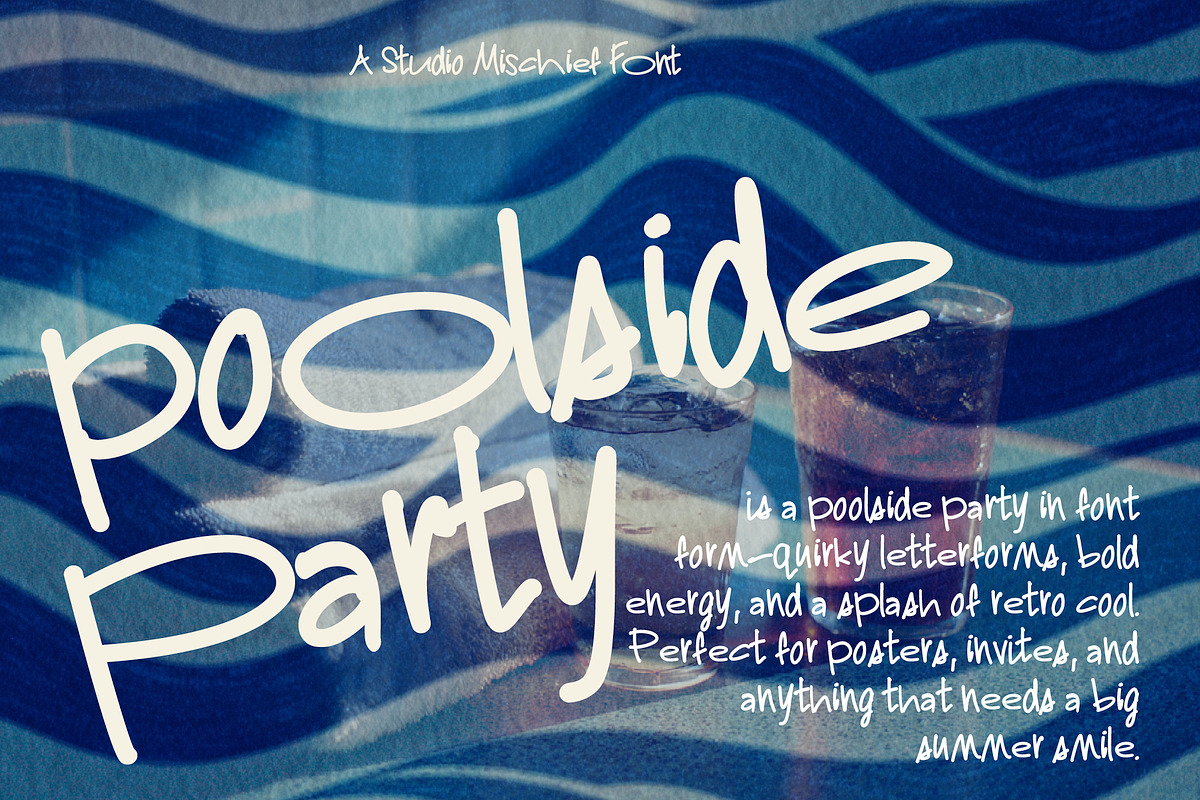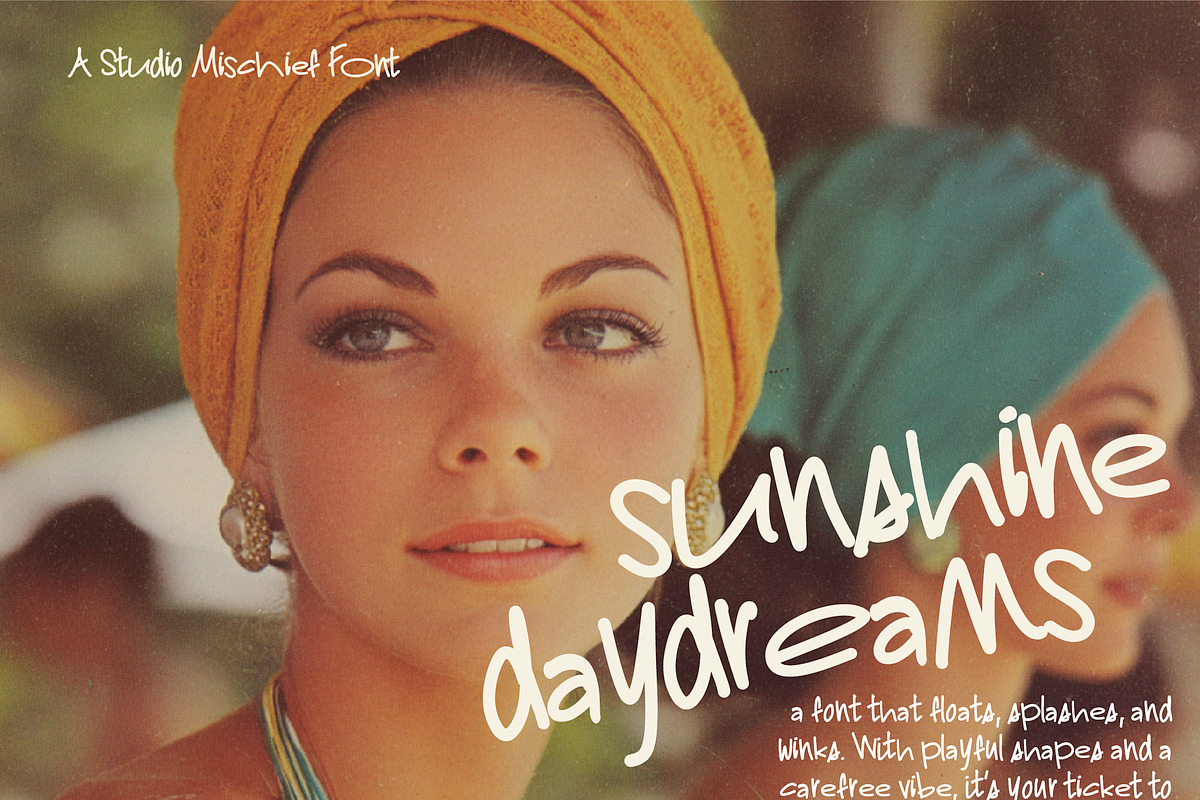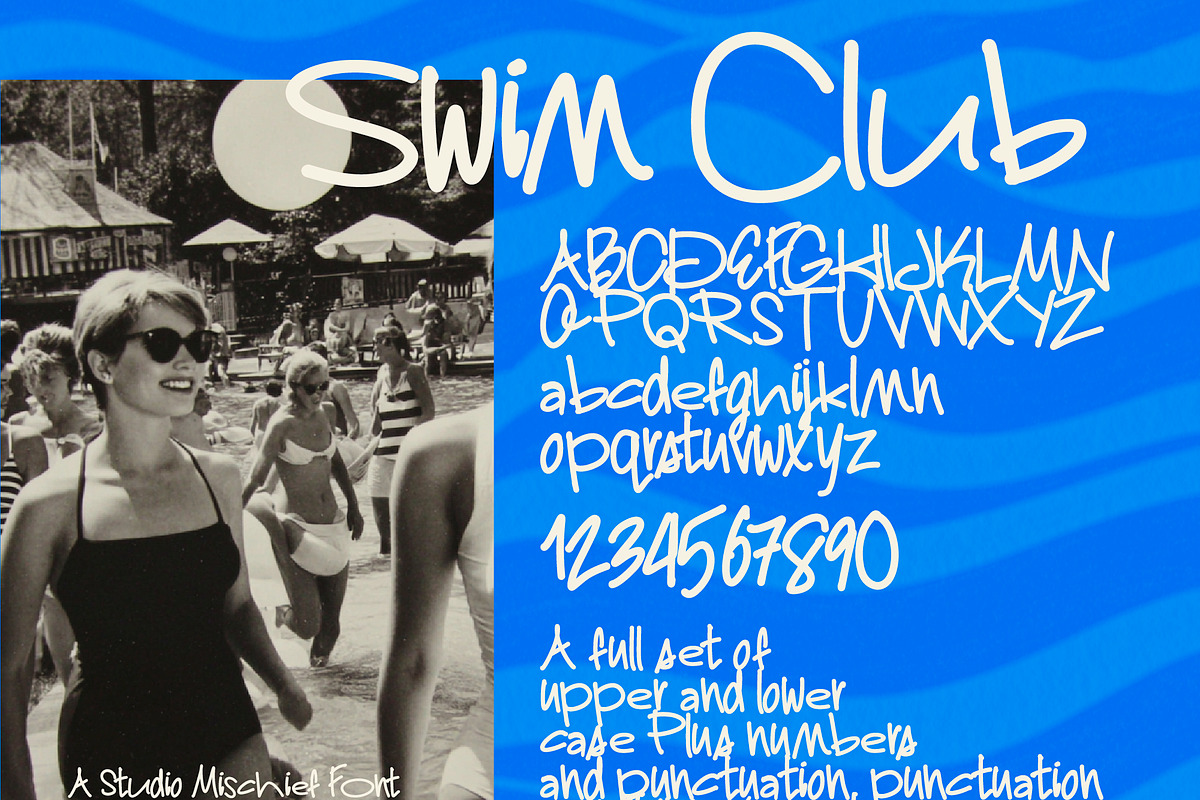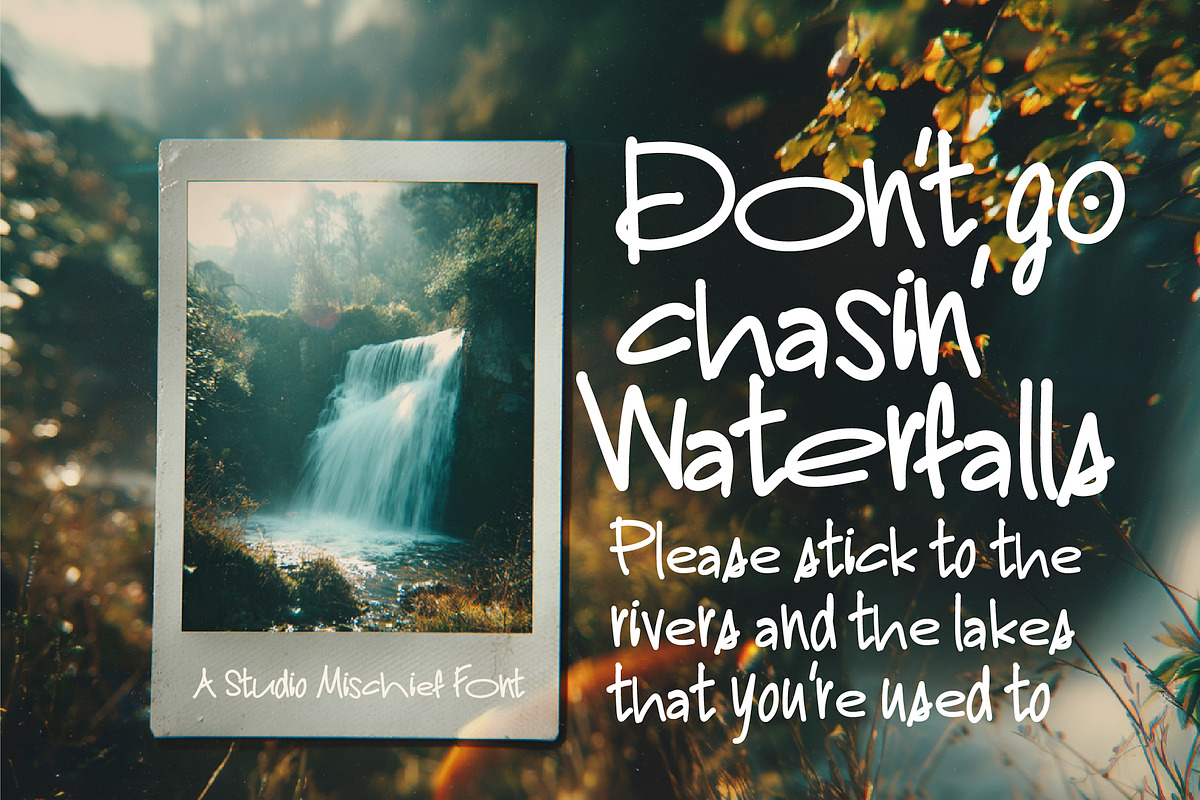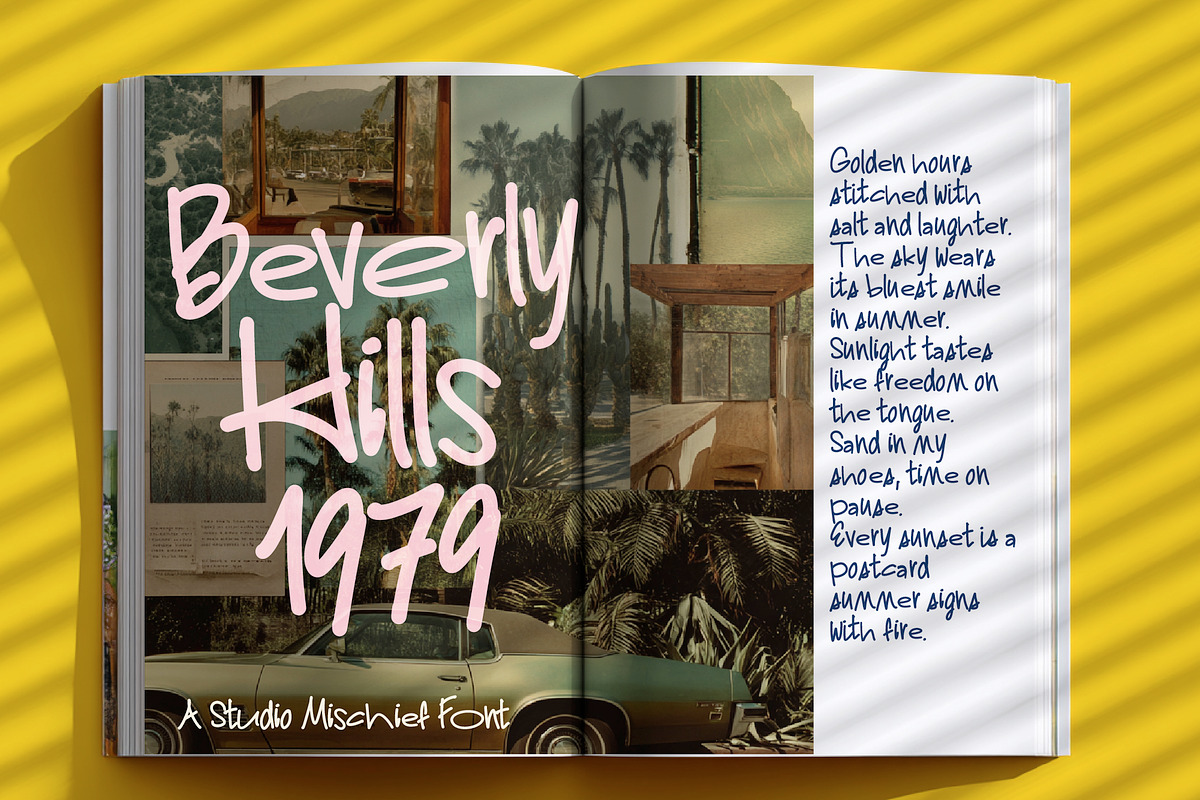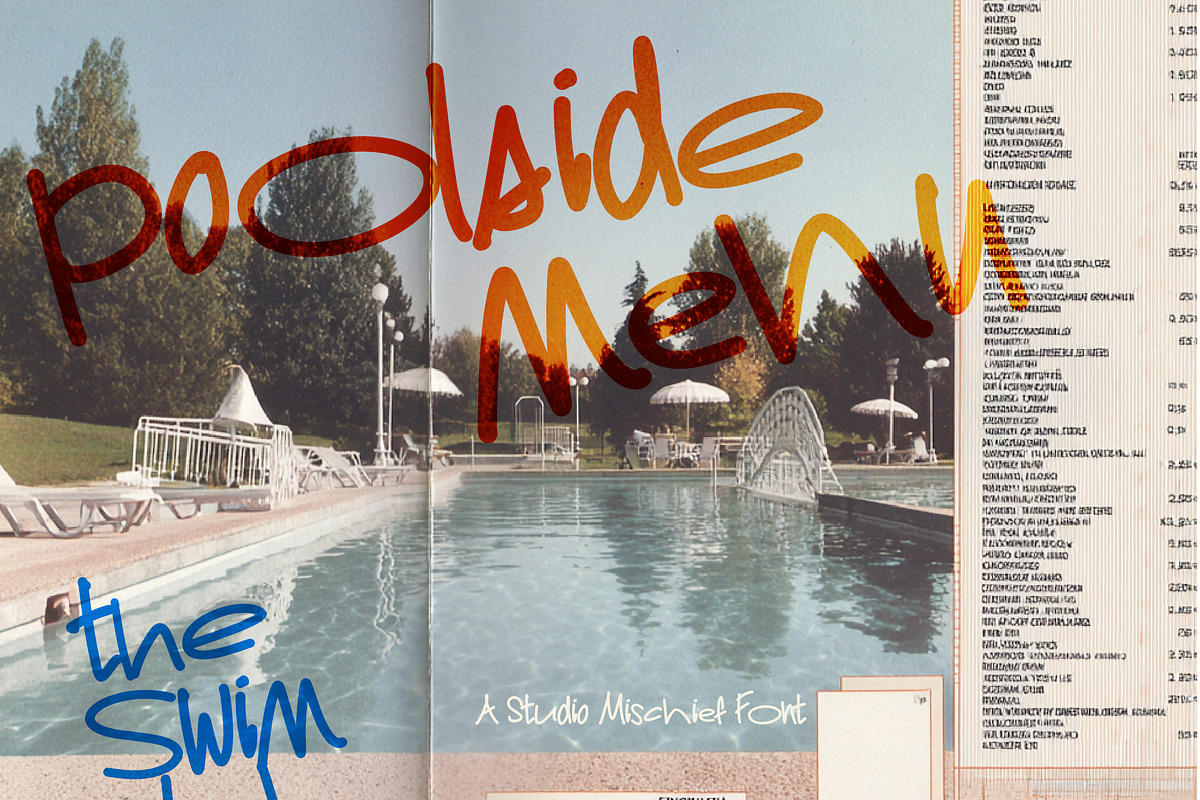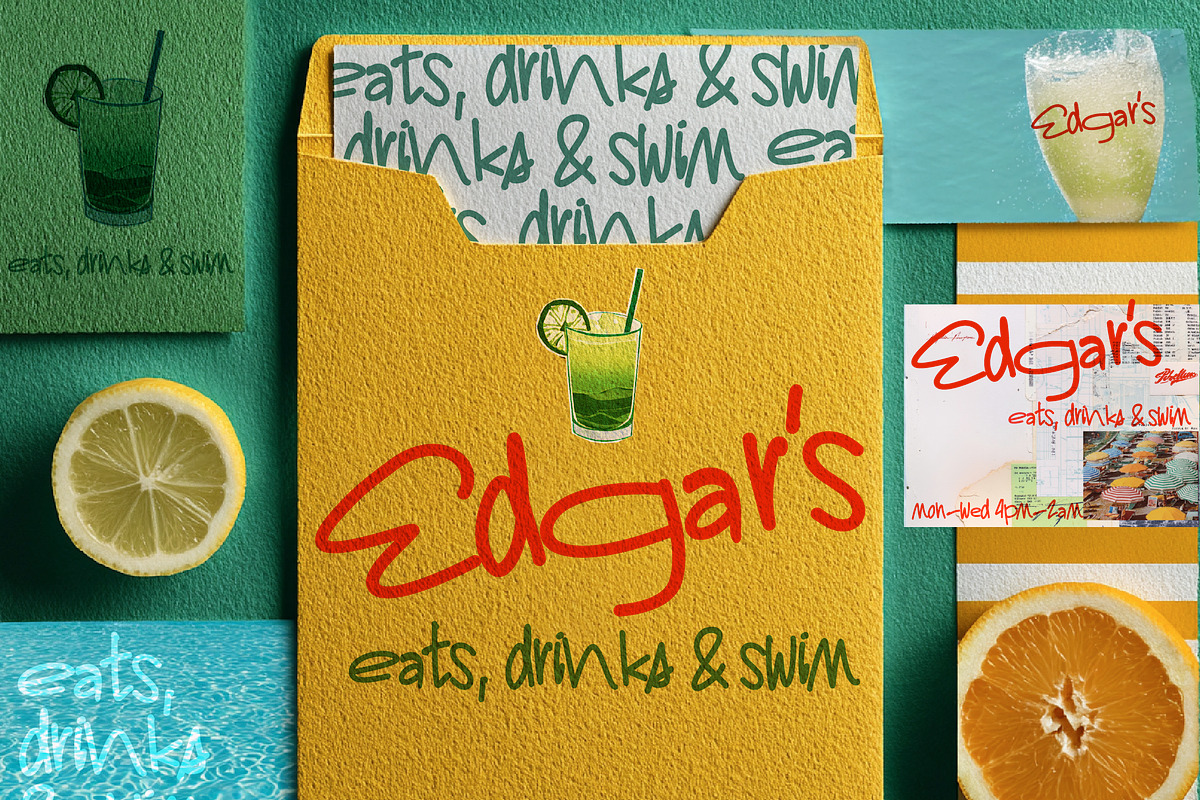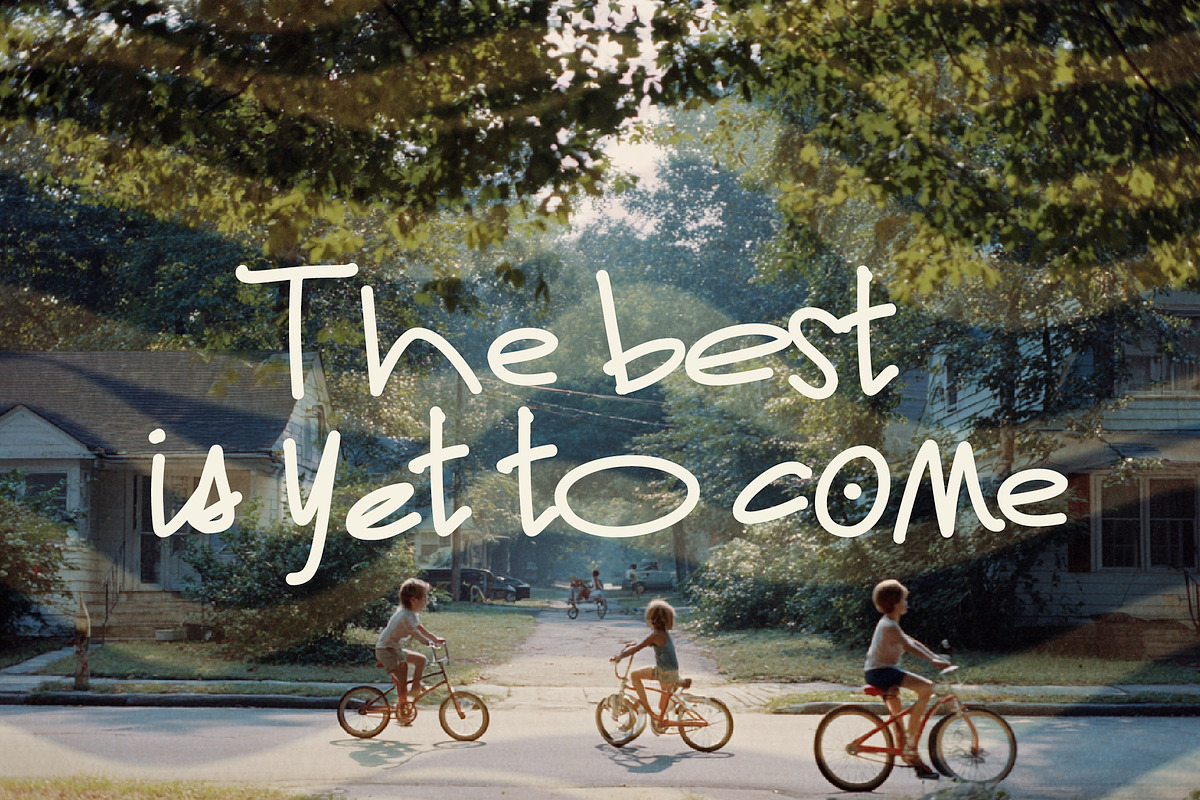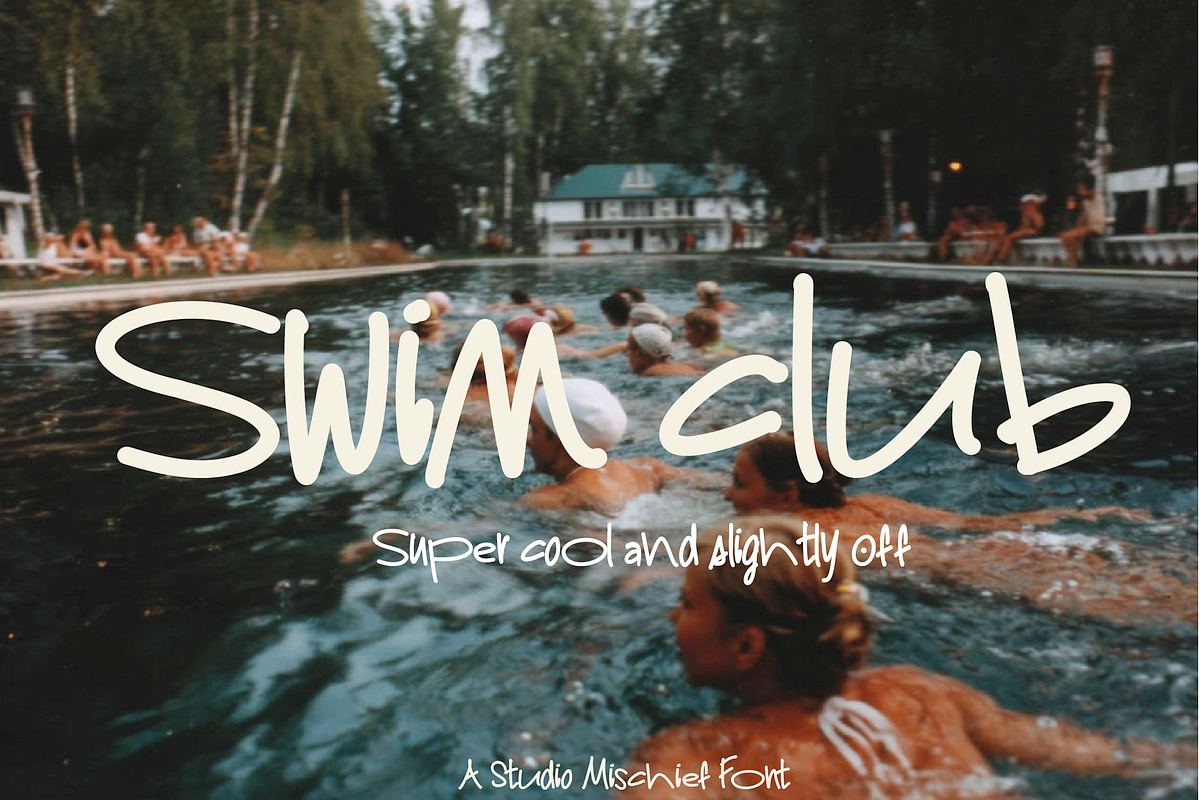
Swim Club - Hand-drawn Display Font
Swim Club is a splashy, sun-drenched hand-drawn sans serif font that doesn’t take itself too seriously. Each letter feels like it just cannonballed into the deep end—bold, curvy, and dripping with personality.
Think poolside cocktails, retro swim caps, neon towels, and vintage postcards from summer vacations you wish you’d never left. Swim Club brings those retro summer vibes straight into your designs, making it perfect for:
- Logos & branding (playful, retro-inspired identities)
- Posters & flyers (festivals, parties, events)
- Packaging design (food, drinks, lifestyle products)
- Social media templates & Canva projects
- Merch & print-on-demand products (t-shirts, tote bags, stickers, mugs)
Why Designers Love Swim Club:
- Hand-drawn sans serif display font with a bold, organic look
- Perfect for modern branding, retro design, and playful typography
- Adds instant personality to headlines, logos, and product packaging
- Great for Creative Market, Etsy, and Canva design projects
- A versatile all-caps display font that pairs well with minimalist sans serifs and script fonts
- Make a splash in your next project with Swim Club — the bold, quirky display font that’s equal parts playful and professional.